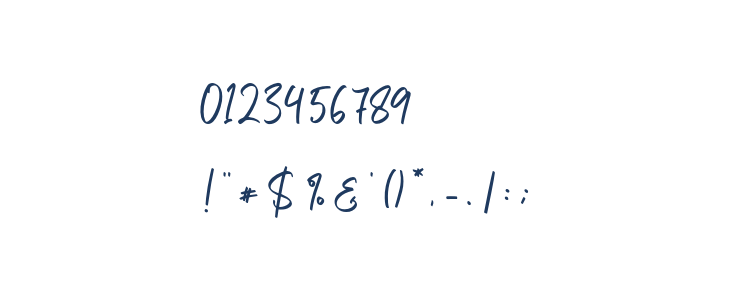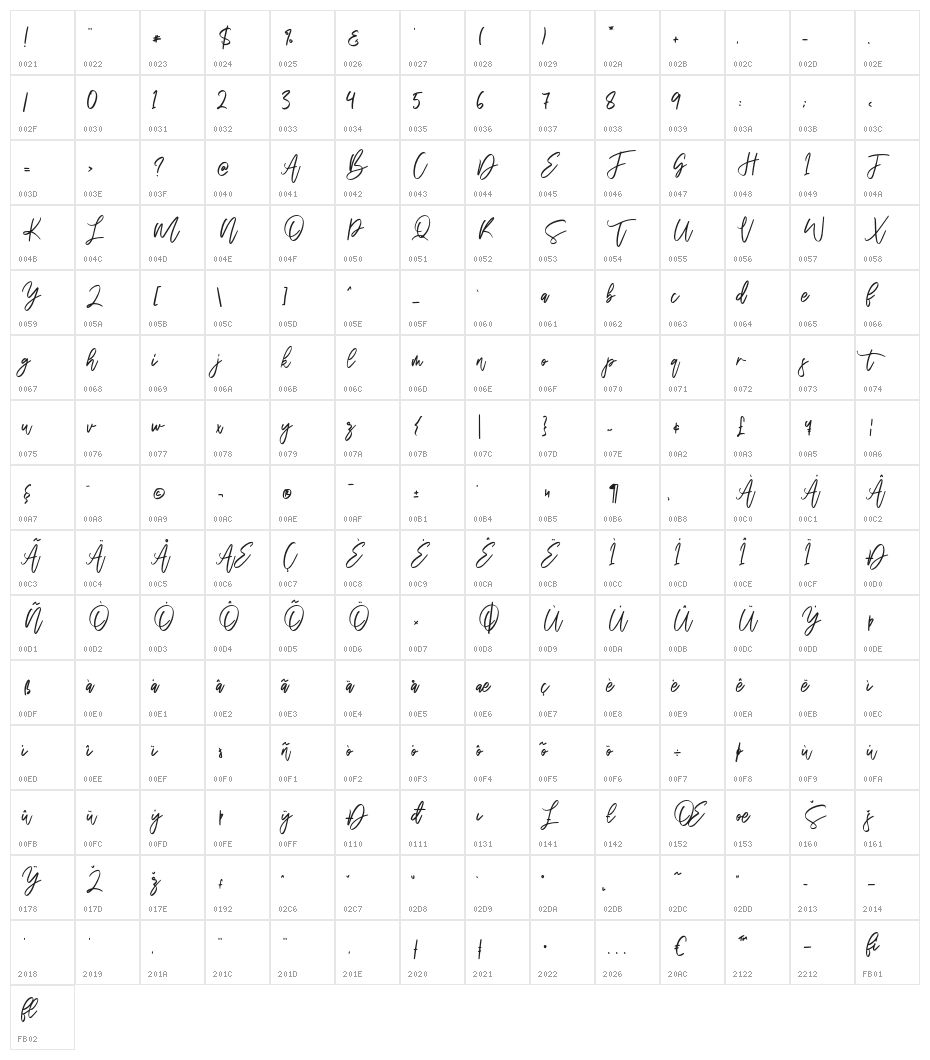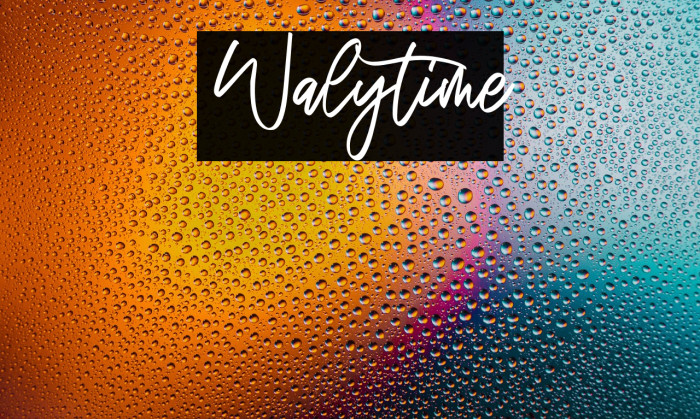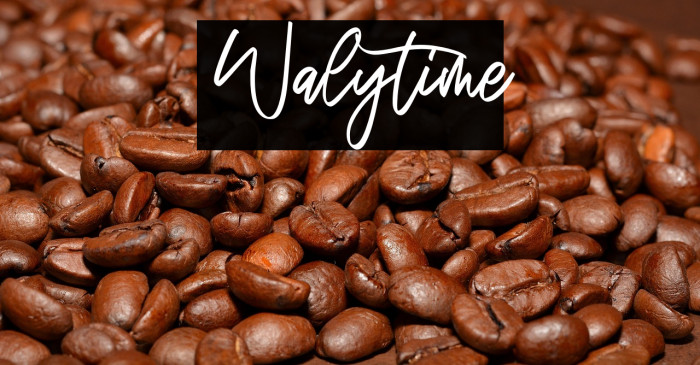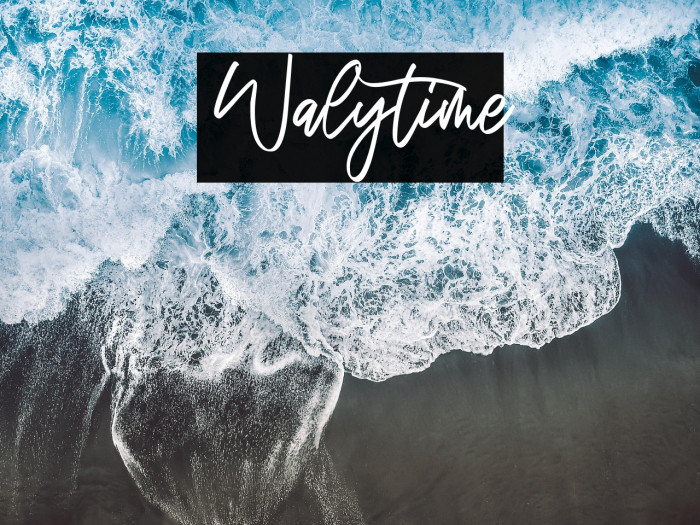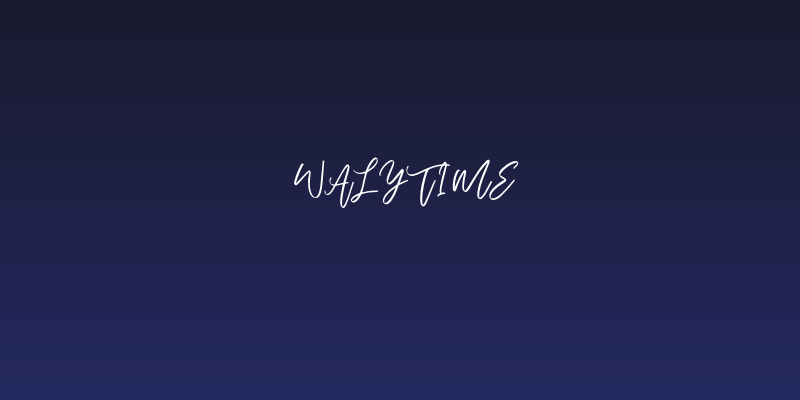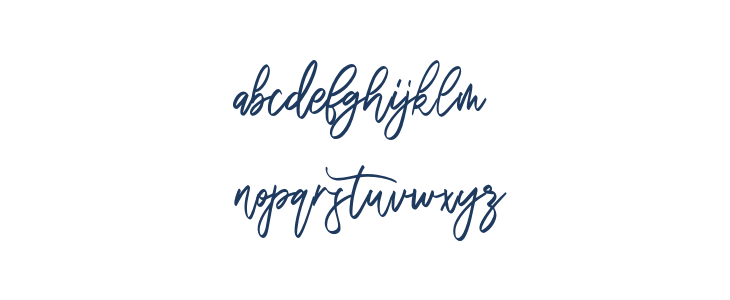
Walytime Font
This font exudes a lively and expressive handwritten style, characterized by fluid, cursive strokes that convey a sense of elegance and personal touch. The uppercase letters are bold and dynamic, with a slight slant that adds to the overall flow. The lowercase letters maintain a consistent rhythm, enhancing readability while preserving the artistic flair. Numbers and special characters are crafted with the same attention to detail, ensuring a cohesive appearance across all elements. The font's playful yet sophisticated nature makes it versatile for various design applications.
| Use Case | Logos, Invitations, Personal Branding |
| Proposed Projects | Ideal for wedding invitations, greeting cards, personal branding, and creative projects requiring a personal touch. |